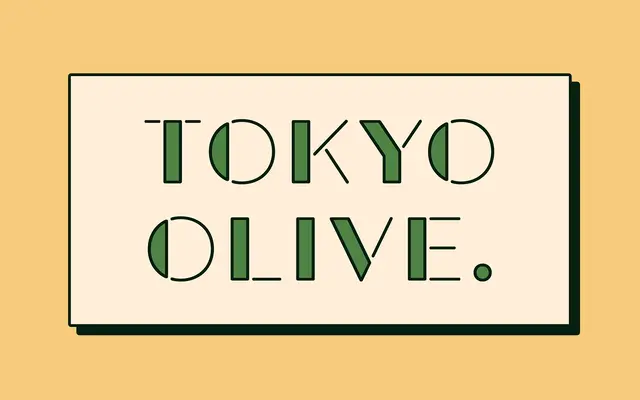
Tokyo Olive
A layered display typeface drawing on the postmodern, fanciful typography of late-1980s Japanese advertising.
Inspired by a brief wave of decorative postmodernism in 1980s Japan, the typeface pairs a voluminous geometric structure with rounded stencil joints and a classic open style. Five styles function as stackable printing plates, allowing separate colours to be assigned to each layer for multi-colour compositions. Suited to posters, packaging and branding where layered typographic play is the intent.
A geometric, stencil-jointed display typeface with open-style layering, designed explicitly for decorative and expressive use; the voluminous, postmodern structure and layered colour system place it firmly in display territory.